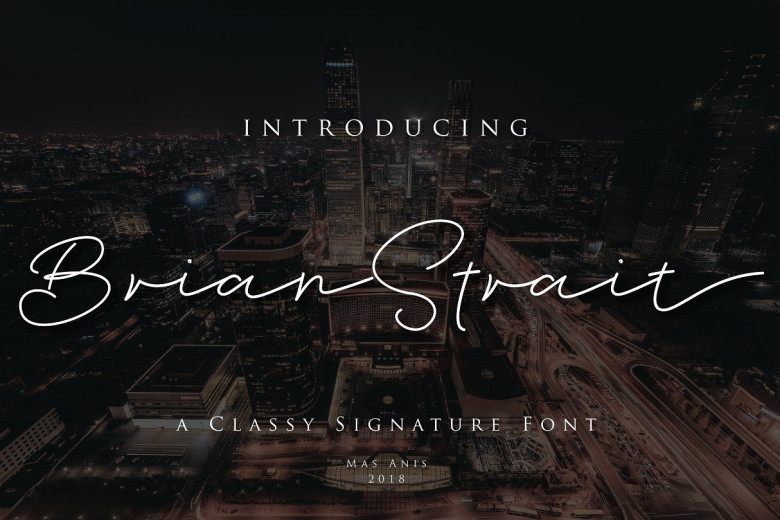
Brian Strait Signature Font
Continue the best free font package today is a classy signature font. Introducing Brian Strait. It is designed and shared by Mas Anis. Brian Strait is a simple and classy font, comes with opentype features such as stylistic alternates,initial and final form, and ligatures. This font is the great choice for watermark on photography, fashion catalogue, modern lookbook design, signature logo design, quotes, album cover, business card, etc.